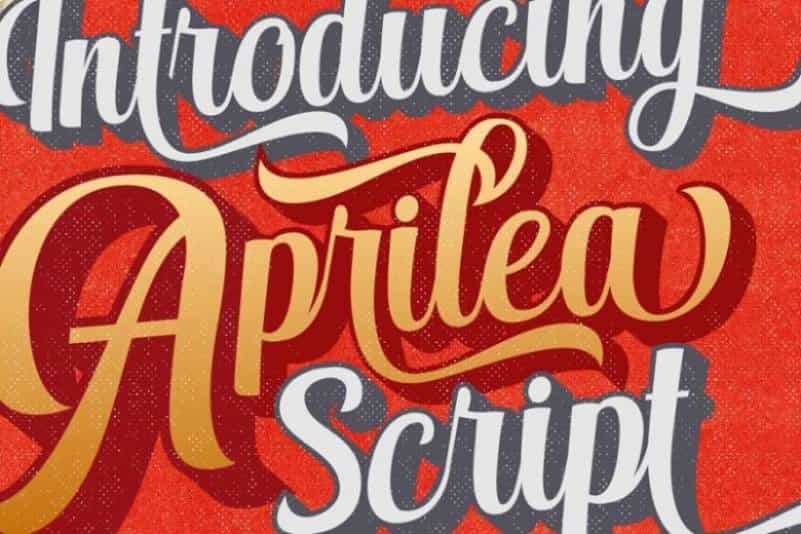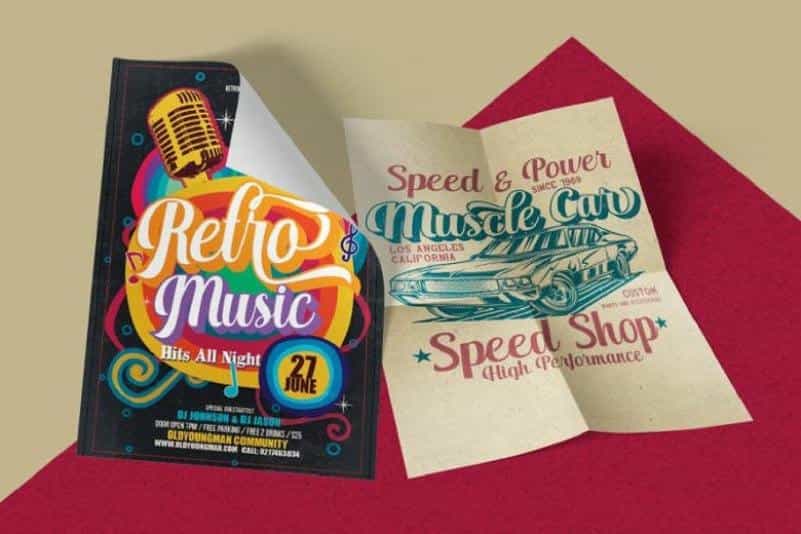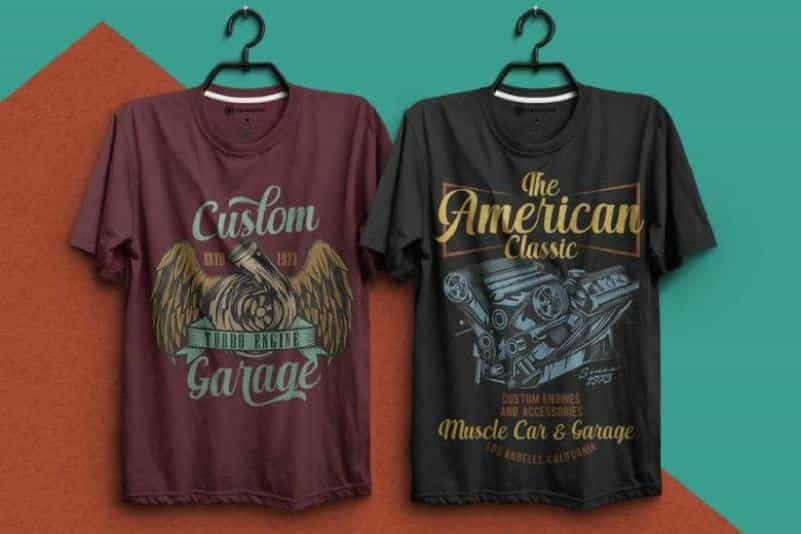
Introducing Aprilea Script Font! This font has 2 Features, Regular and Extruded, thus it can generate interesting fonts to see. You no longer need to worry about how to make effect on the text.